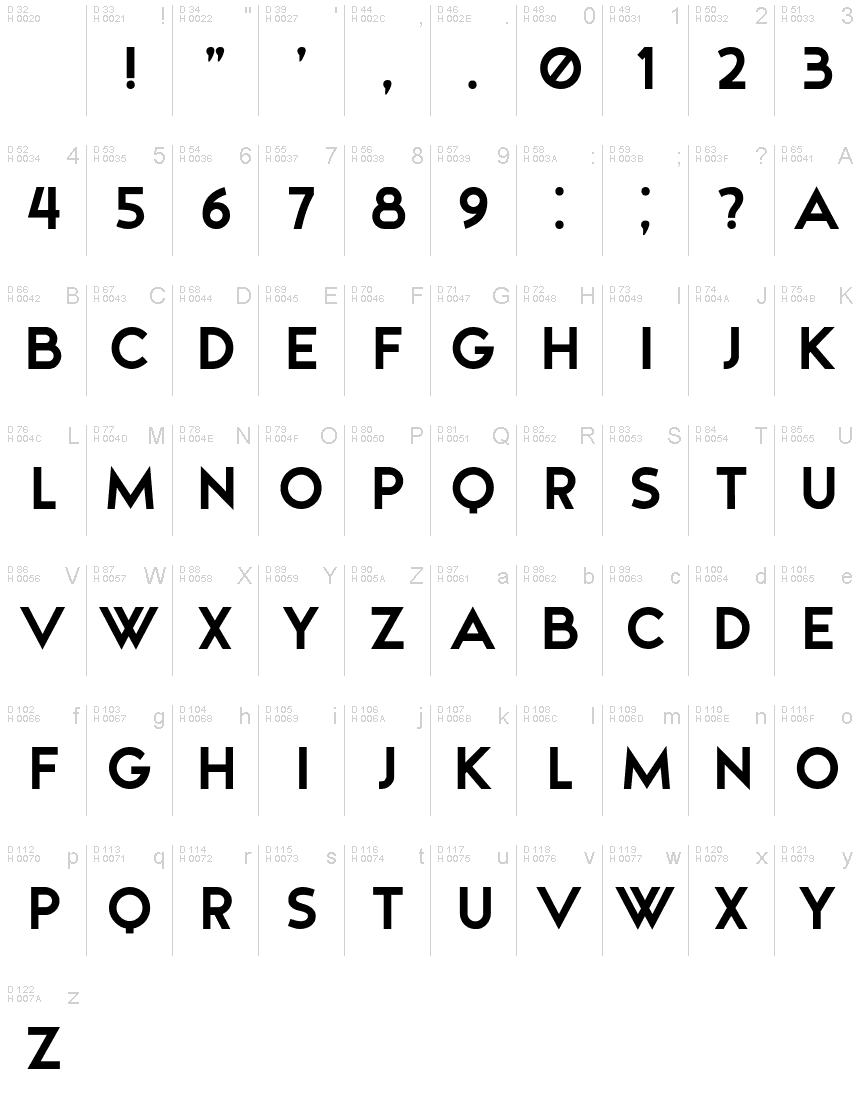
Roseberry Regular
Roseberry is a stunning sans serif font designed by Vladimir Nikolic. With its wide letterforms, Roseberry is perfect for bold, eye-catching designs that demand attention. Use it for branding, logos, packaging, headlines, and more. The simple yet striking design of this font makes it an ideal choice for modern and minimalistic projects that require a clean and professional look. Try Roseberry for your next project and let your designs blossom.